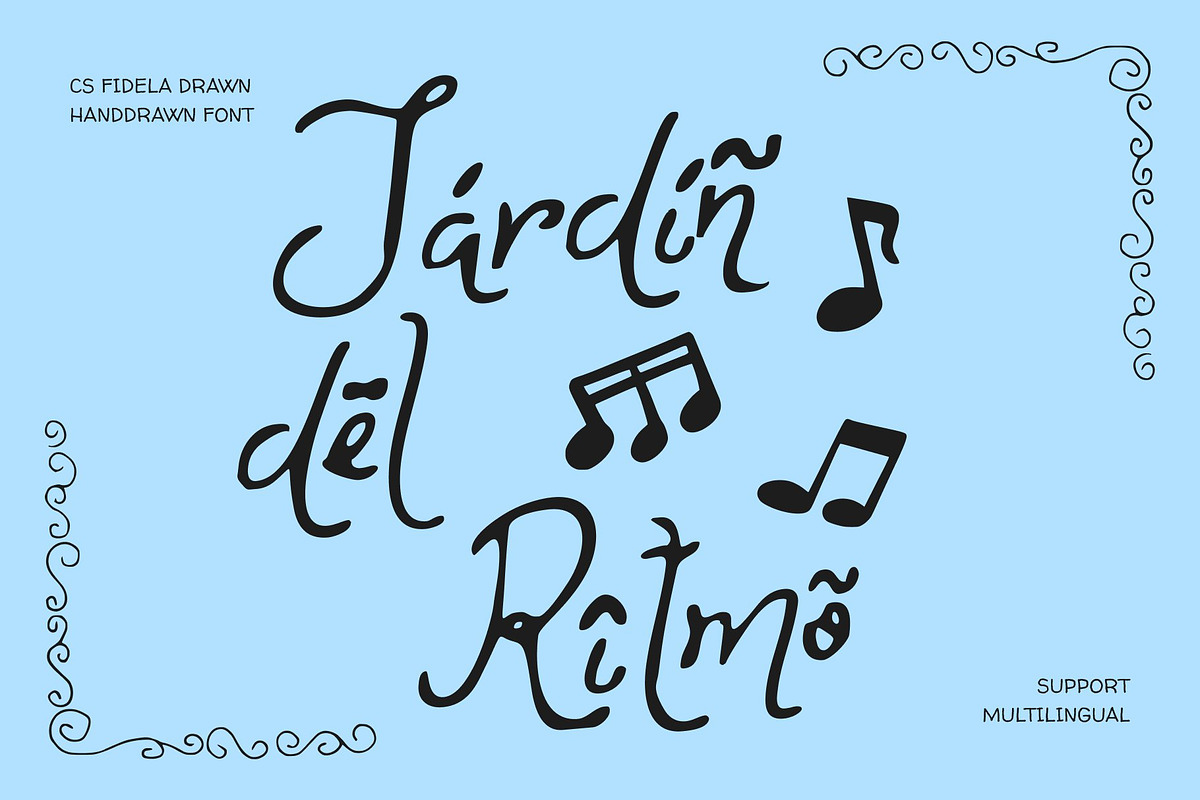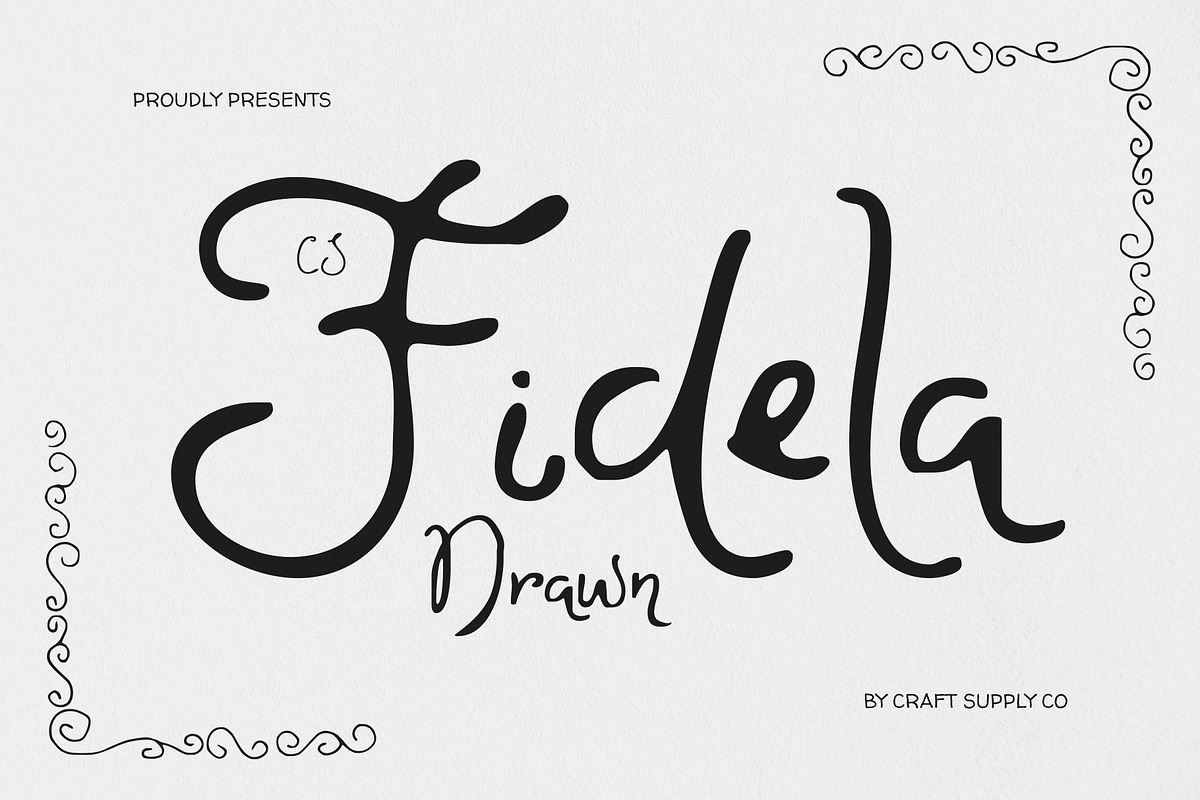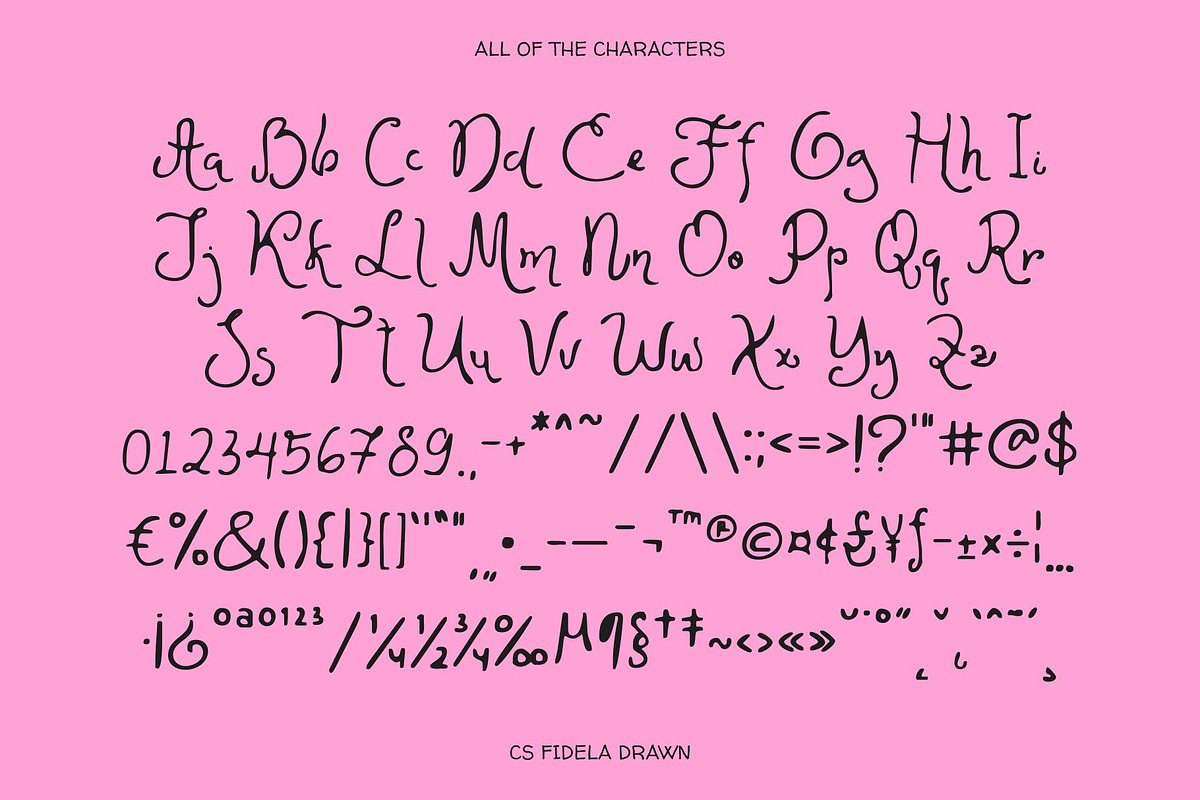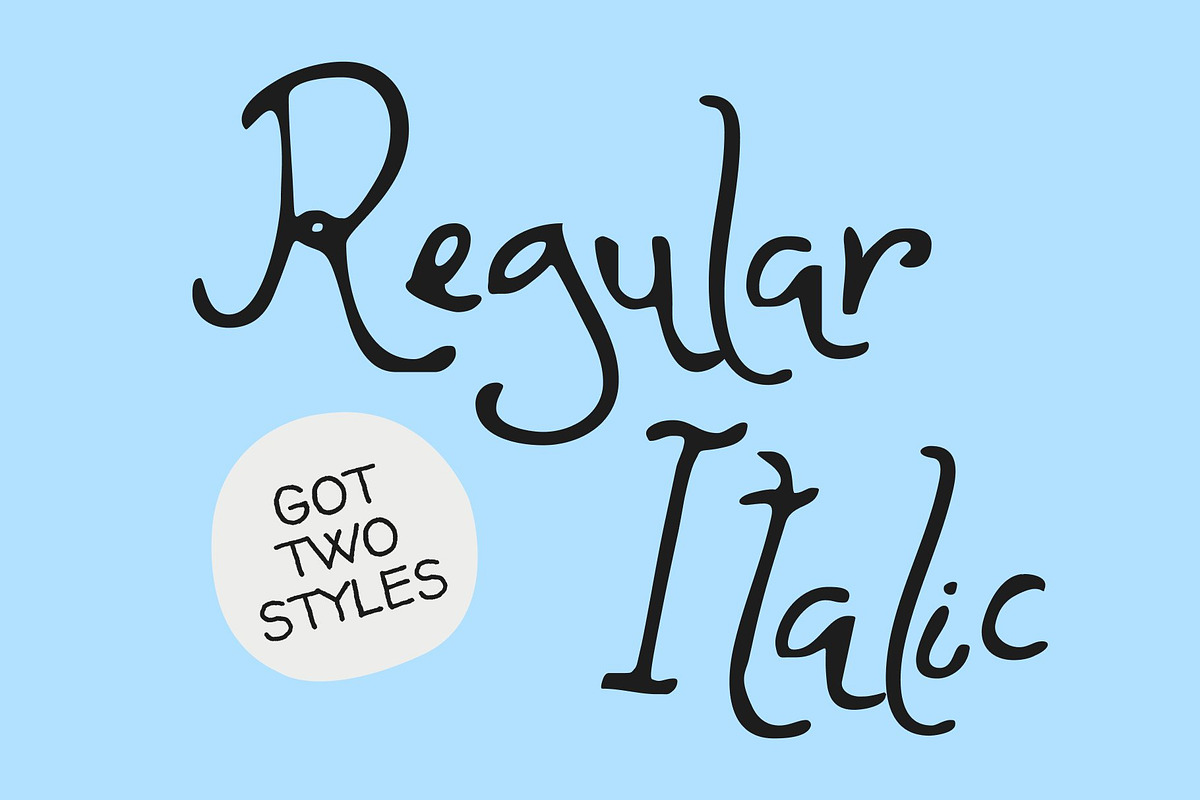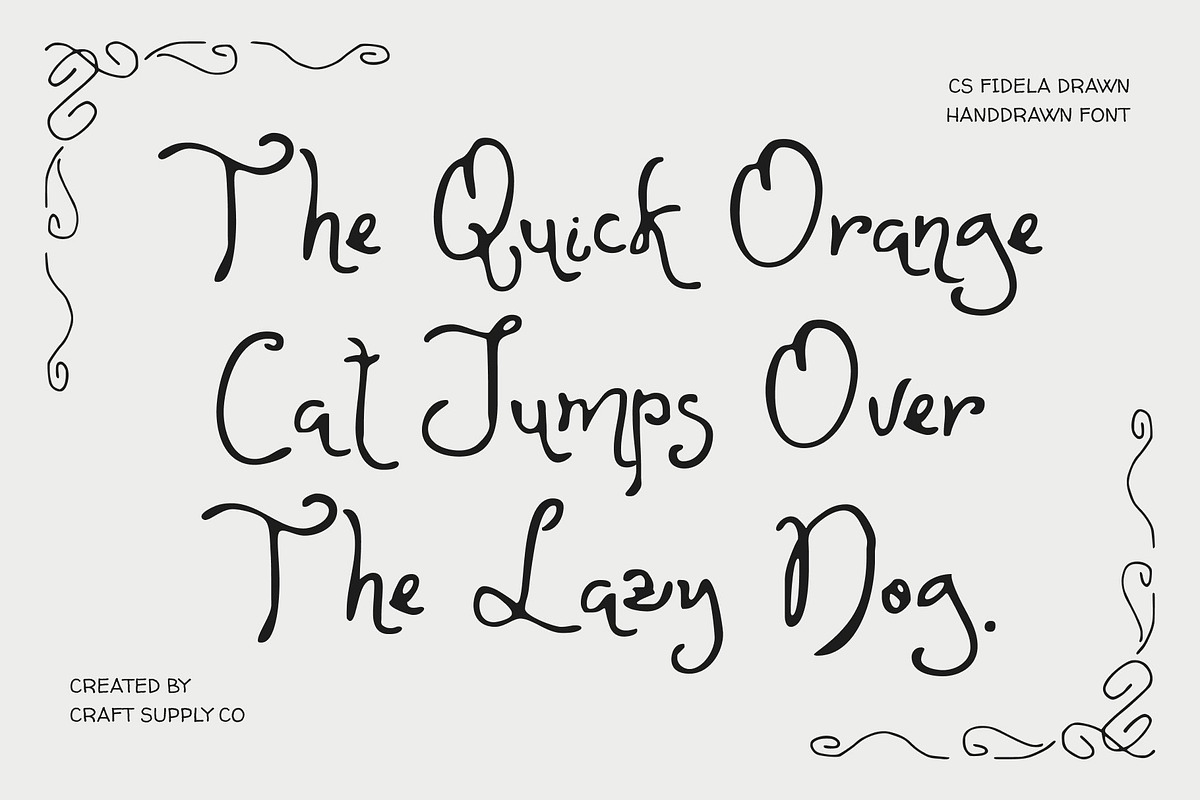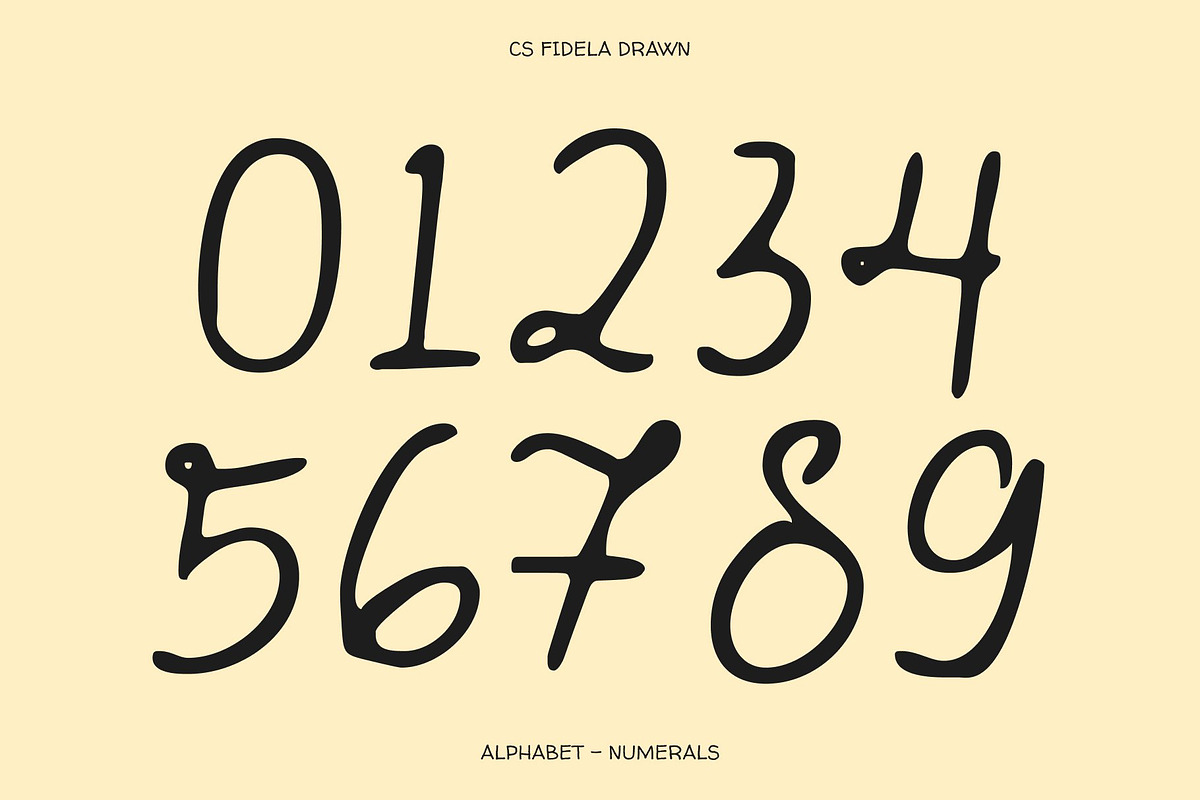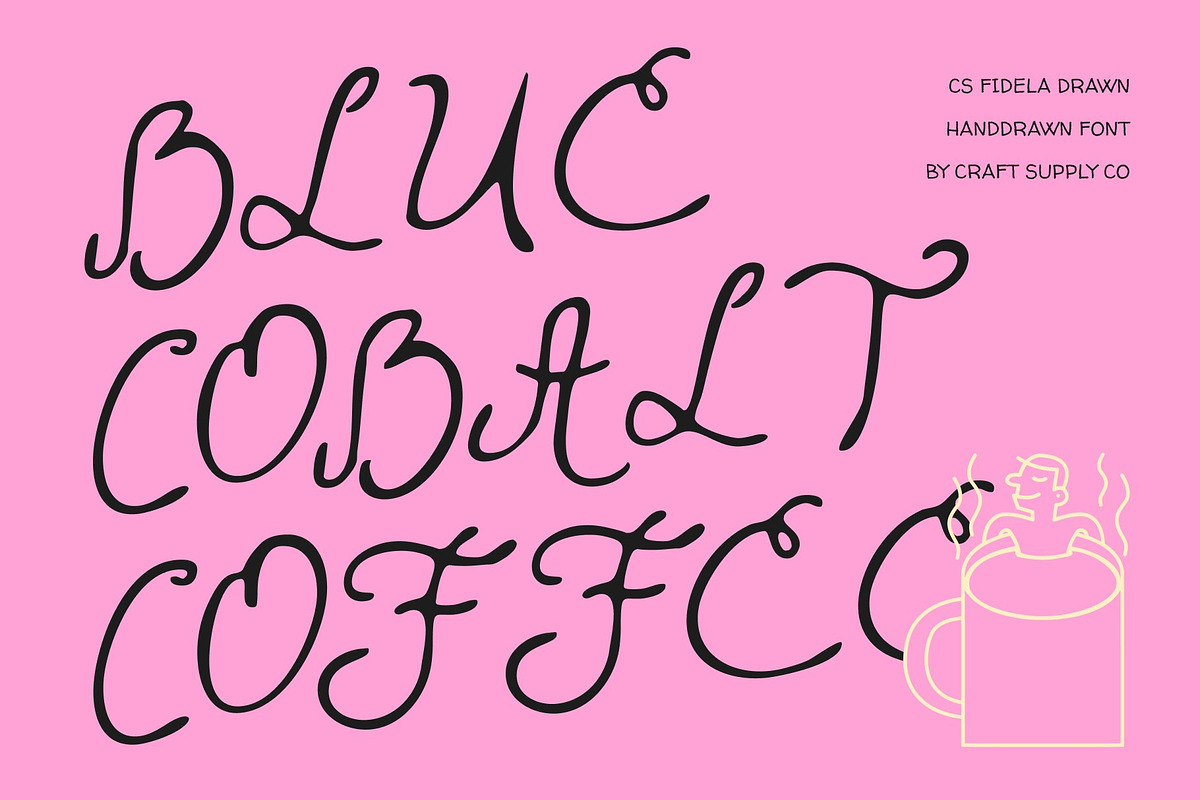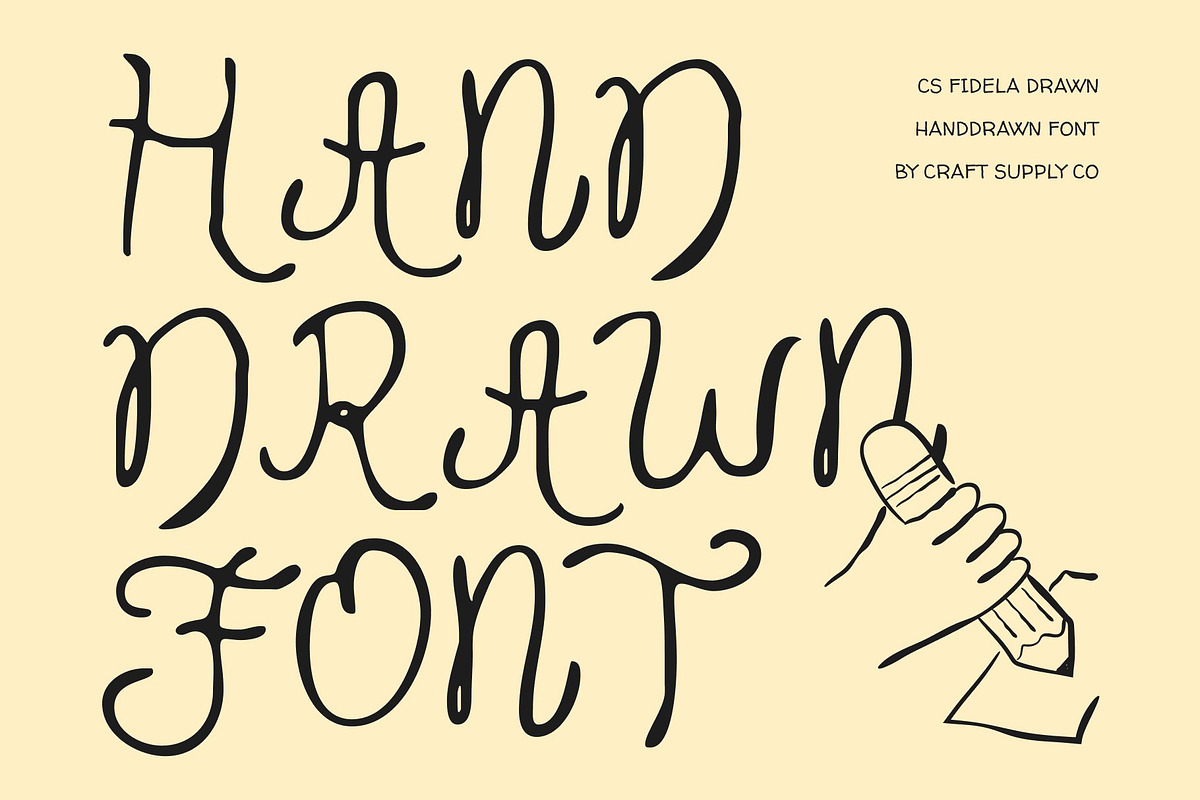
CS Fidela Drawn
CS Fidela Drawn – Whimsical Script Font with Handcrafted Charm
Playful Hand-Drawn Style with Cheerful Energy This is a handcrafted script font that radiates joy and whimsy. Its fluid, expressive strokes capture the spontaneity of natural handwriting, giving each letter a unique personality. The drawn texture adds a warm, organic feel, making the font look lively, charming, and full of character.
Graceful Curves with Delightful Movement Every letter flows with smooth loops and playful shapes, creating a rhythmic and enchanting visual style. This whimsical approach makes text feel animated and approachable, adding a sense of creativity and lighthearted elegance to any design.
Perfect for Celebratory and Creative Projects Ideal for invitations, party posters, greeting cards, or festive branding, this font sets a cheerful and inviting tone. Its playful aesthetic pairs beautifully with bright colors, decorative elements, and imaginative layouts, enhancing joyful and expressive designs.
Versatile for Branding, Social Media, and Artistic Designs From logotypes and packaging to quotes and digital artwork, this font brings a handcrafted charm that balances elegance with spirited fun. This font transforms text into a lively, memorable statement, perfect for projects that need personality, creativity, and heartfelt expression.